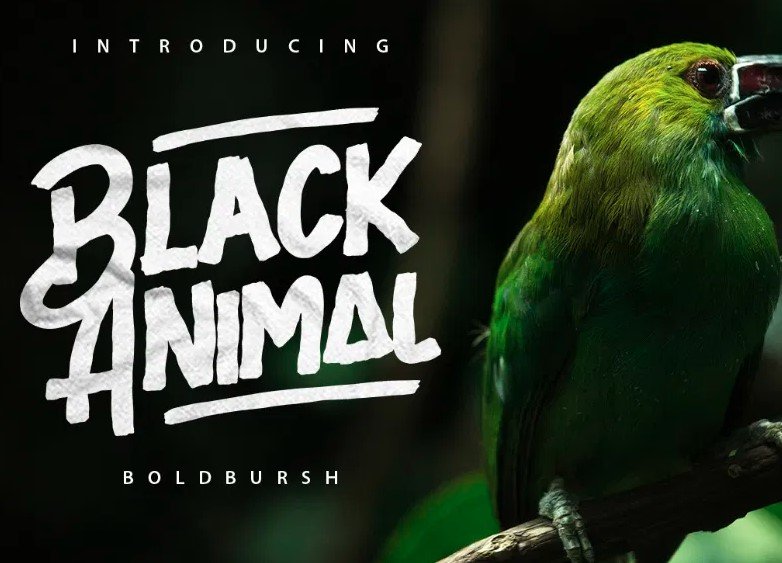
We’re excited to introduce you to the outstanding typeface favored by many top graphic designers. It’s the Black Animal Font, an exceptionally cool brushed typeface that you can download for free. This font boasts rich features and stylistic sets, all at no cost.
If you are willing to view some samples of this great font like wanted to see the characters designs then we have attached an image for you below to get an idea about its unique designing layouts and styles which will help you to takes the decision of choosing this font.
View Of Black Animal Font
Now, the time is came to view the sample the of great typeface that is best to work with oxygen font. Below, we shared an image that contains the glyphs and characters of this amazing font which creates best designs in Adobe photoshop and Adobe Illustrator.
This will be great for designing large designs, t-shirt designs, and use in the emblems, printing purpose. Also, this can workable in typographic projects as well like book writing, posters, banners, covers, and other cool designs that can easily be made with this font.